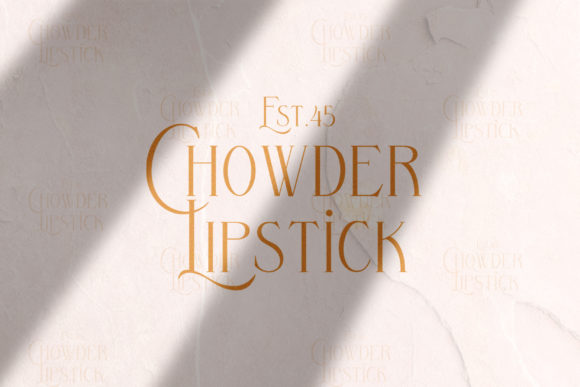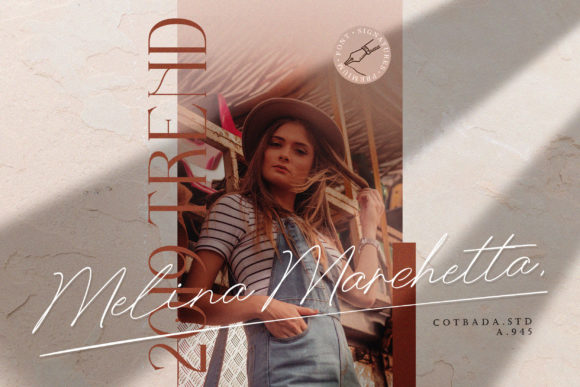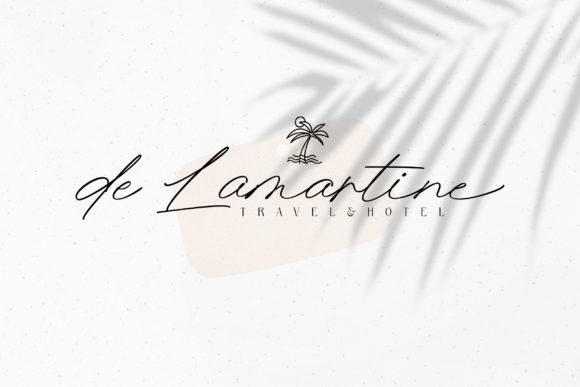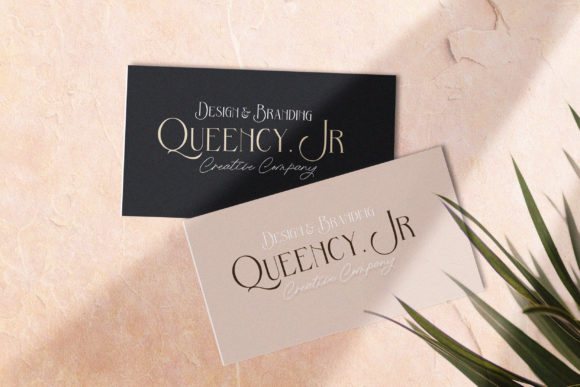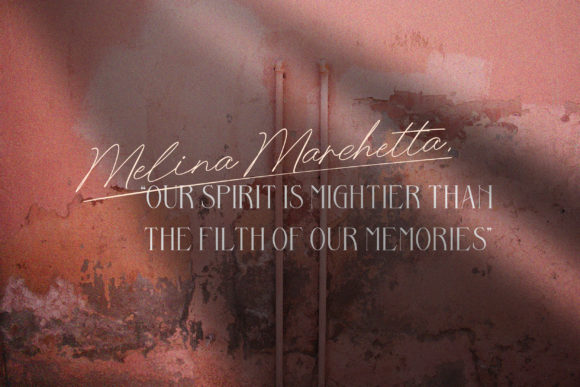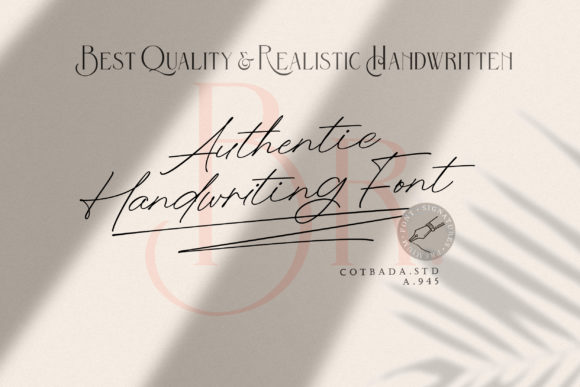
Summer Vibes in Typography: Discover the Bernitha Angelica Berkeley Duo Font
As the sun shines brighter and warmer days arrive, many of us find ourselves seeking inspiration in the great outdoors. The gentle breeze, vibrant colors, and lively atmosphere of summer are the perfect catalysts for creativity. For designers, this is the ideal time to experiment with new font combinations that capture the essence of the season.
Enter the Bernitha Angelica Berkeley Duo Font, a harmonious pairing of two distinct font styles that will elevate your design projects to the next level. This versatile duo offers typographic balance and sophistication, making it an invaluable asset for designers seeking to create engaging and visually appealing content.
Whether you’re working on a summer-themed campaign or simply looking to refresh your brand’s visual identity, the Bernitha Angelica Berkeley Duo Font is sure to provide the perfect solution. Its versatility and timeless appeal make it a valuable addition to any designer’s toolkit.
Bernitha Angelica Berkeley Duo Font Key Features
- Font Style: Script Font
- Font Size: 1000 glyphs, including uppercase and lowercase letters, numbers, and punctuation marks
- Resolution: High-resolution fonts suitable for print and digital use at 300 DPI and above
- Unique Characteristics: Elegant, cursive script with a touch of sophistication and femininity, perfect for wedding invitations, greeting cards, and other romantic designs
- Language Support: Multilingual support for Latin-based languages, including English, Spanish, French, and more
Review of Bernitha Angelica Berkeley Duo Font
Overall, I think the Bernitha Angelica Berkeley Duo Font has some great qualities that make it a solid choice for designers. ✨ One of the things I appreciate is its unique blend of modern and vintage elements. The font has a distinct personality that can add a touch of sophistication to any project. ✨ I also appreciate the wide range of weights and styles that are available, which makes it easy to find the perfect fit for your design.
- ✨ Unique blend of modern and vintage elements
- ✨ Wide range of weights and styles available
- ✨ Good legibility and clarity, even at small font sizes
However, there are some limitations to consider. ⚠️ The font may not be the best choice for highly technical or scientific content, as the letterforms can be a bit ornate and may not be easily readable in small sizes. ⚠️ Additionally, some of the characters may not be perfectly kerned, which can affect the overall appearance of the font.
Overall, I think the Bernitha Angelica Berkeley Duo Font is a great choice for designers who want a unique and stylish font for their projects. While it may not be perfect, its strengths outweigh its limitations, and it’s definitely worth considering for your next design project.
Tips for Getting the Most Out of Bernitha Angelica Berkeley Duo Font
For the most effective use of Bernitha Angelica Berkeley Duo Font, consider the following tips:
1. Use the font for titles and headings to add a touch of elegance.
2. Experiment with different font sizes and styles to create visual interest.
3. Combine the font with other fonts or graphics to create a unique look.
Bernitha Angelica Berkeley Duo Font is ideal for:
1. Luxury branding and marketing materials.
2. High-end packaging and product design.
3. Elegant invitations and event materials.
Alternatives to Bernitha Angelica Berkeley Duo Font1. Great Vibes Font